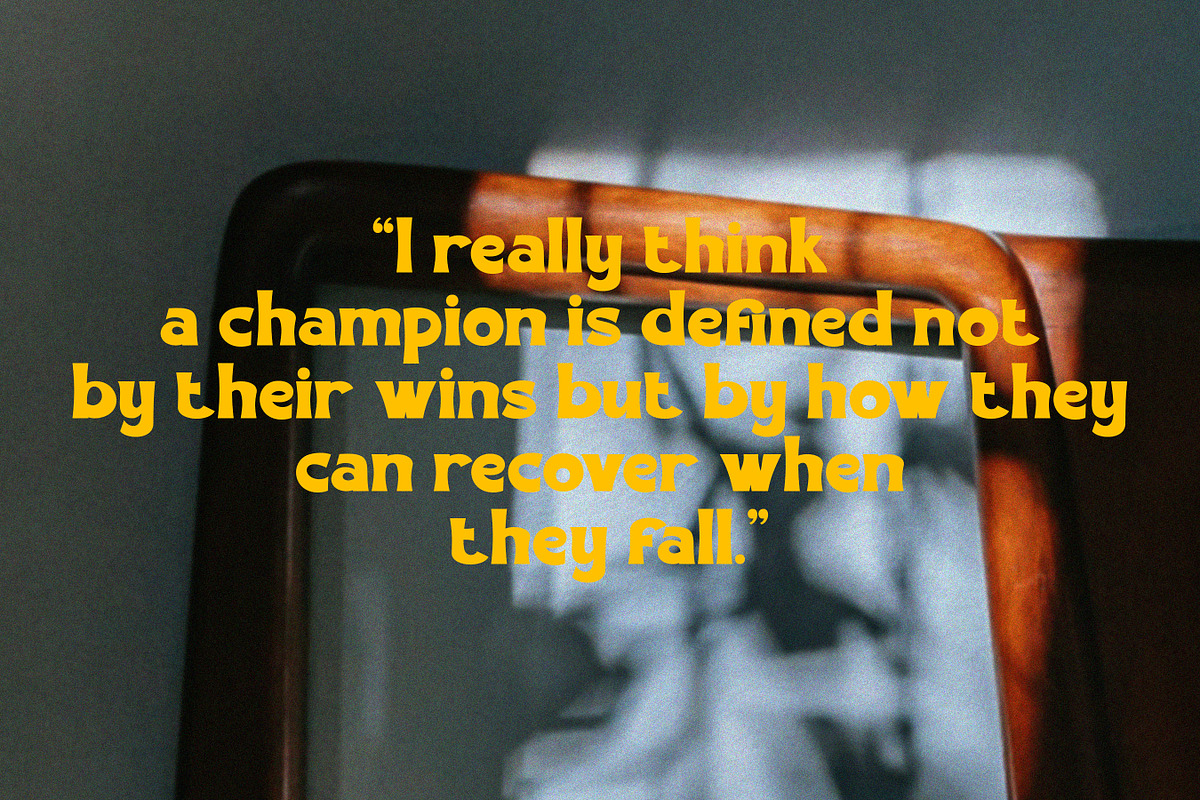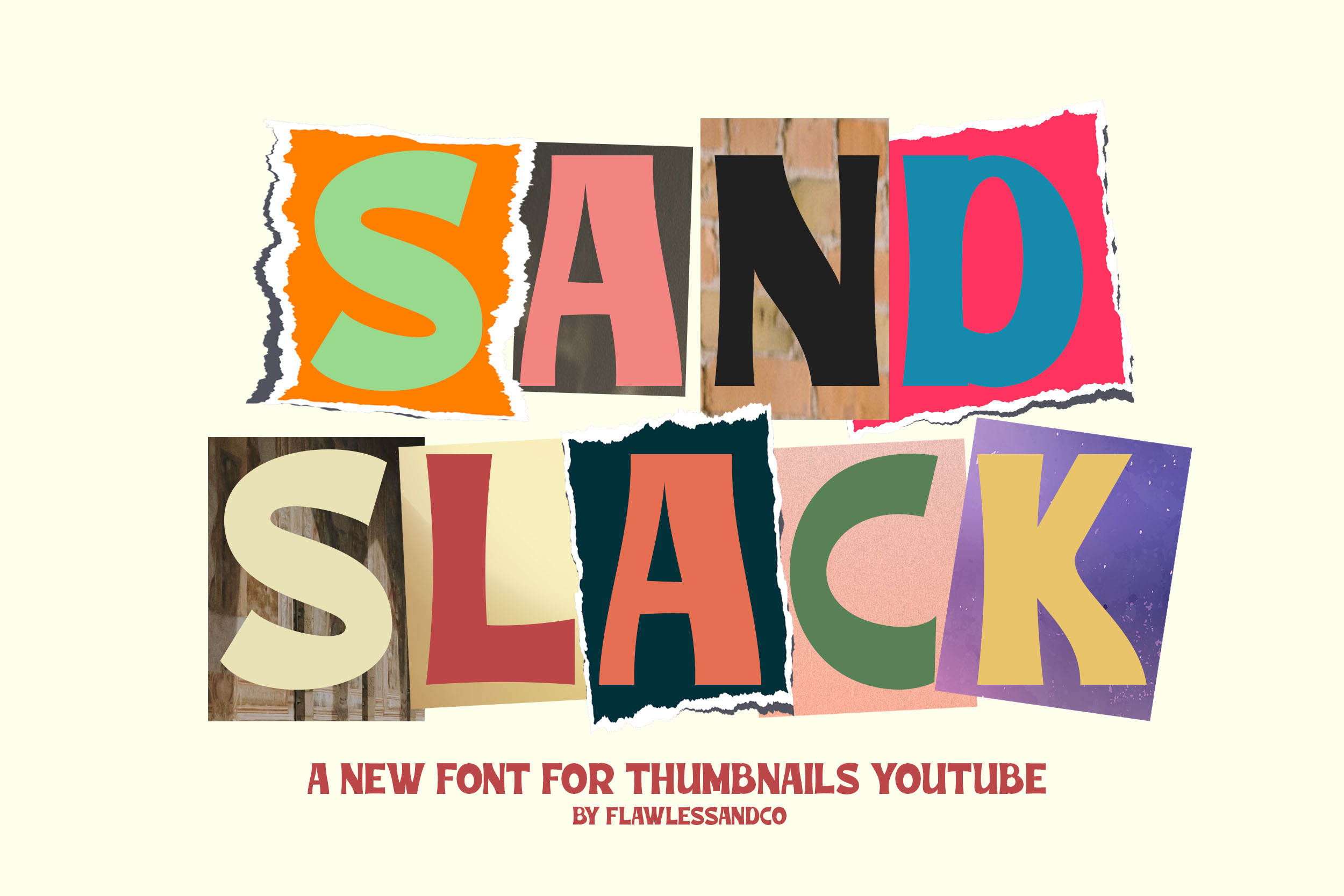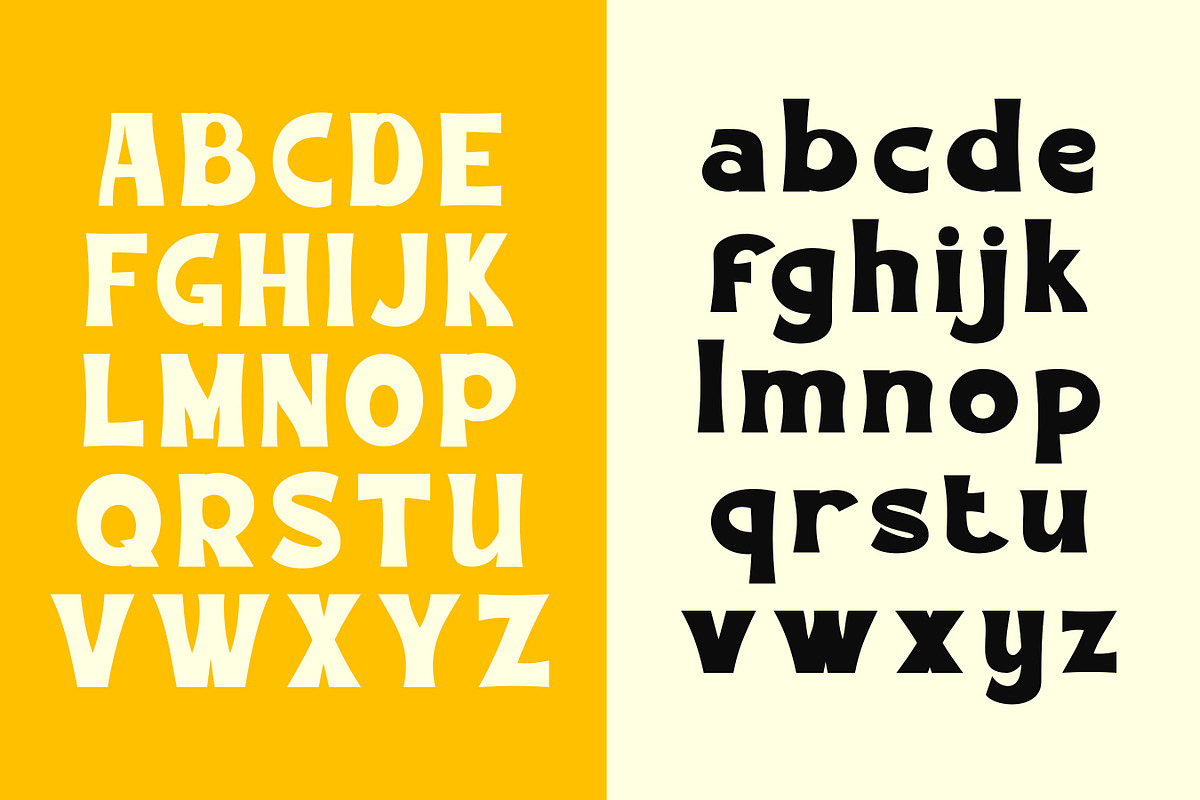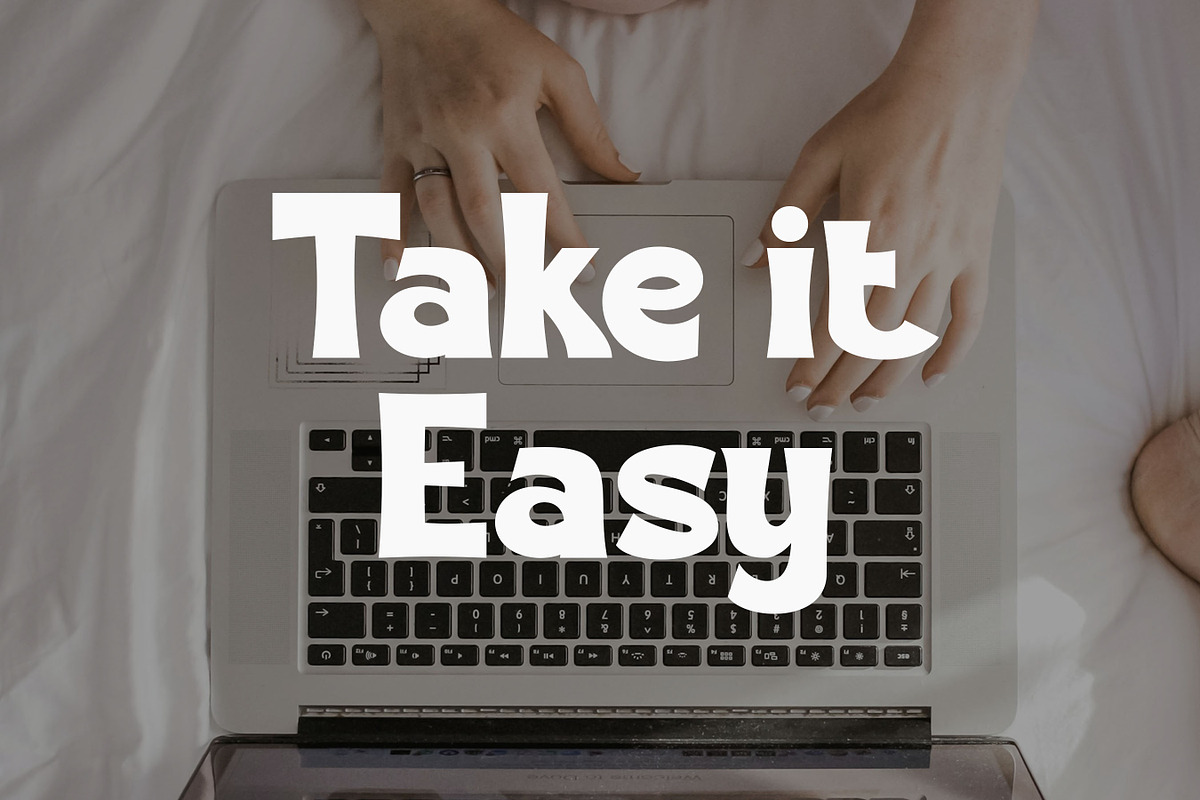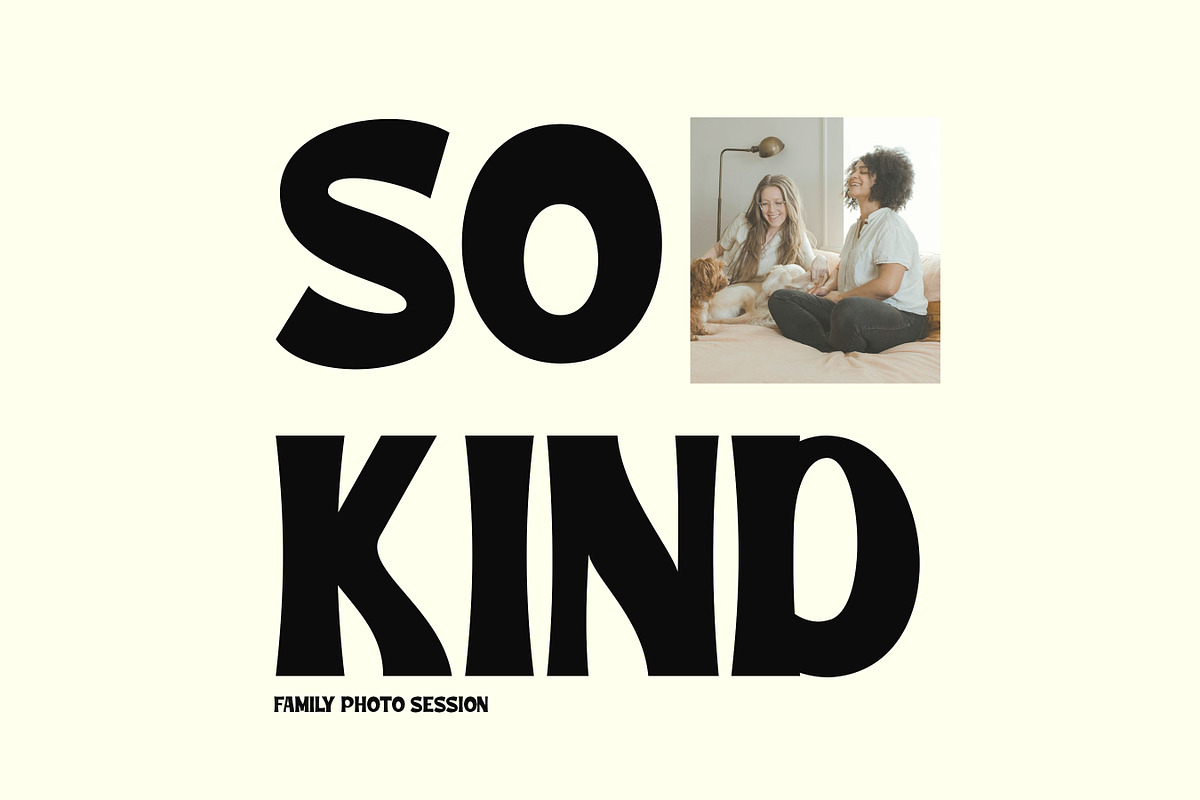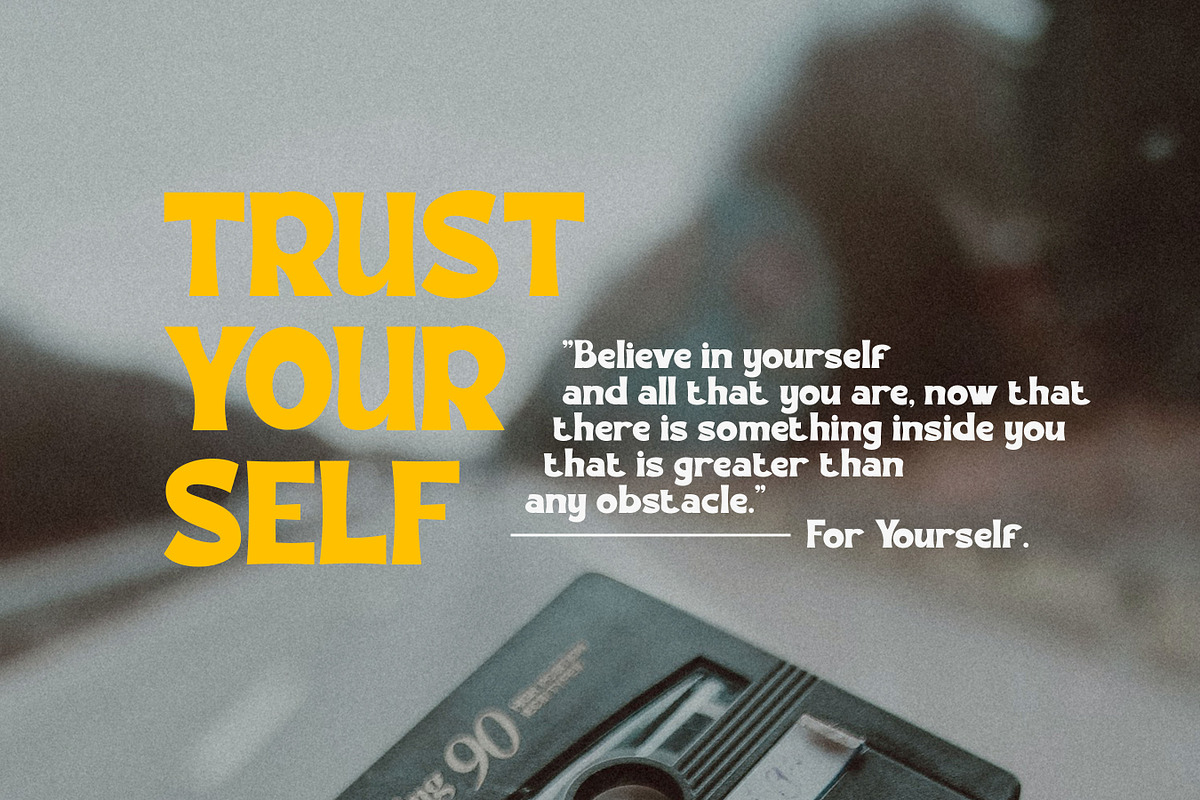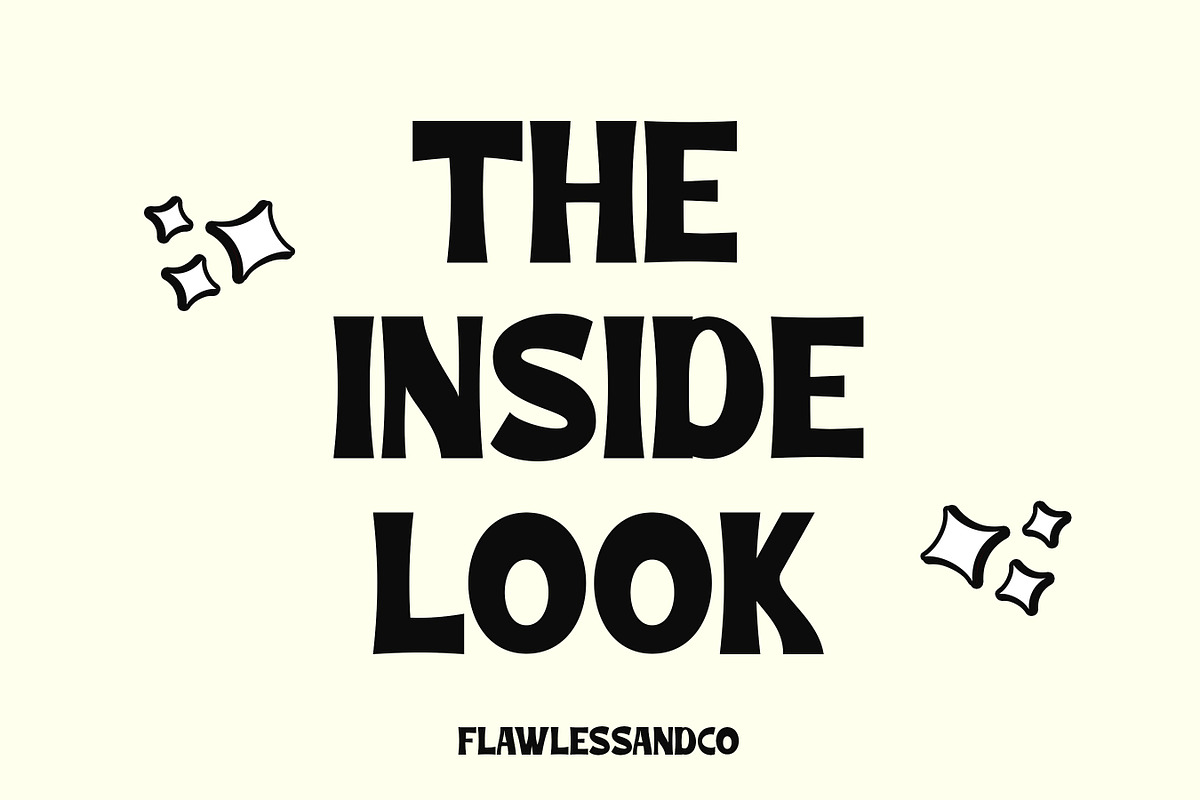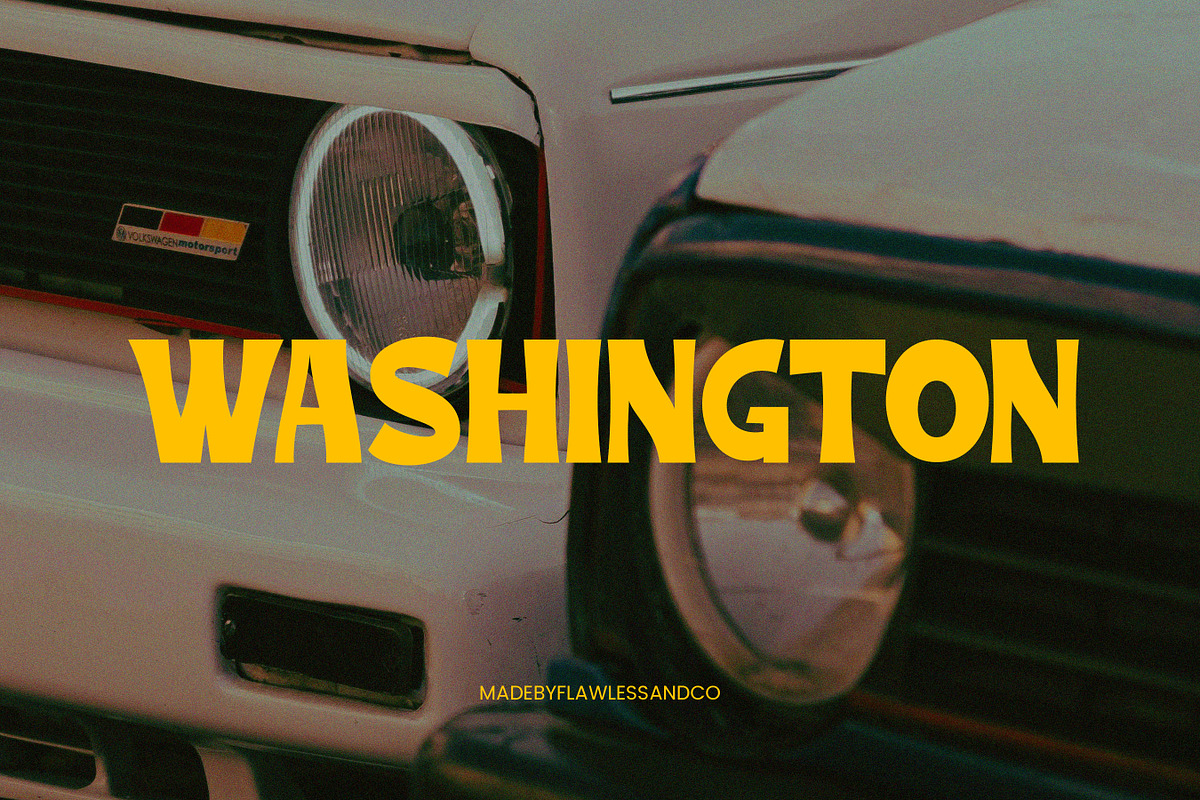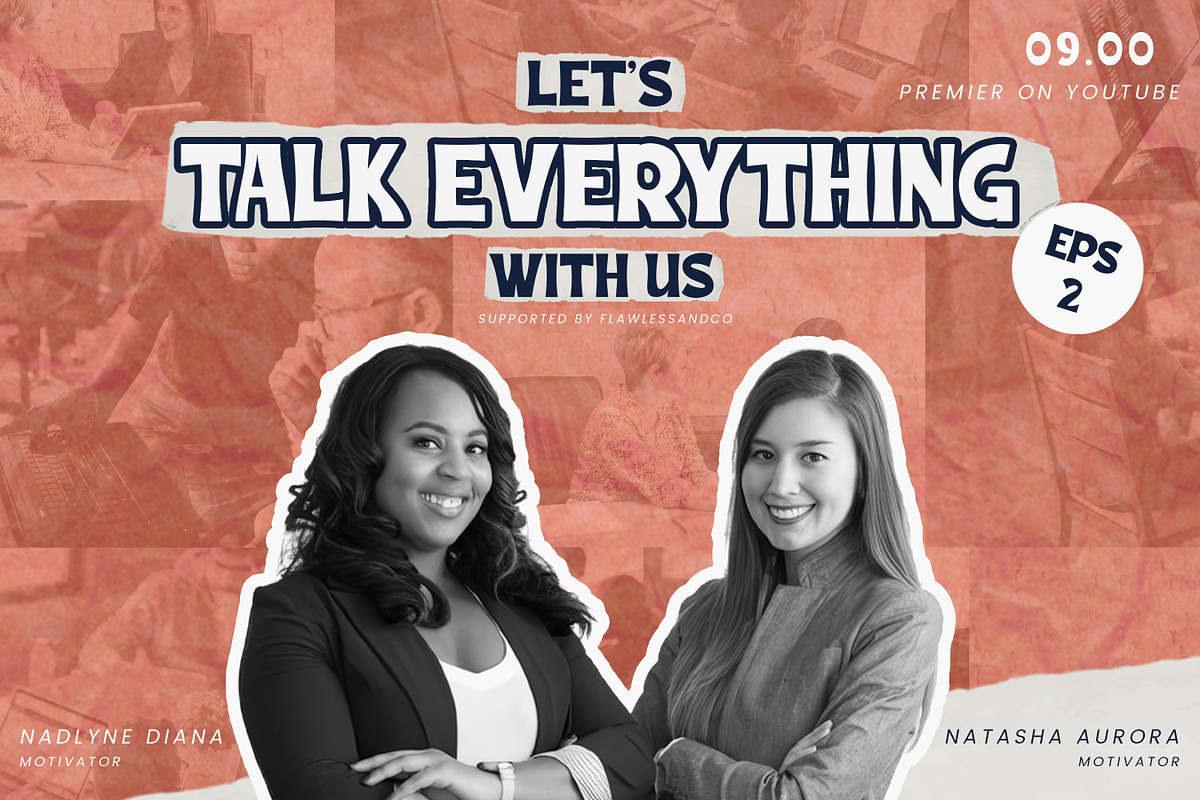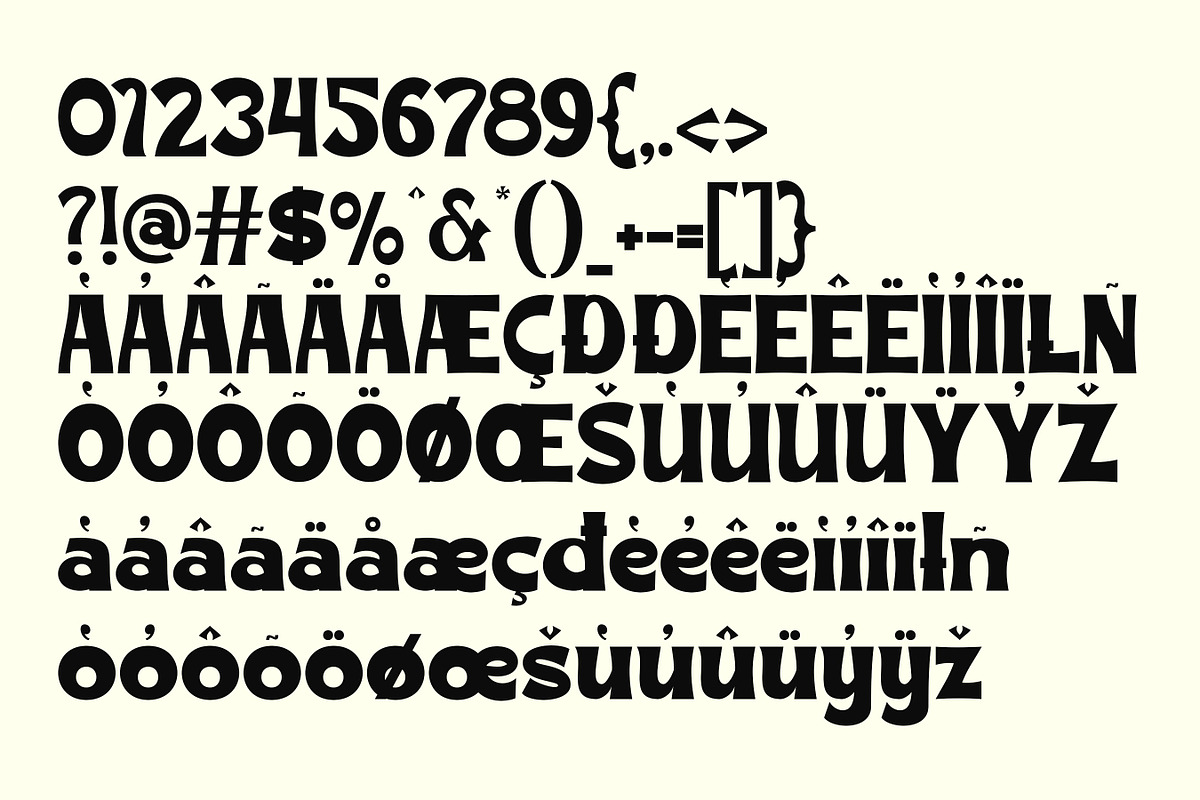
Sand Slack - Thumbnail Font
Introducing "Sand Slack" is a font for thumbnail projects. Elevate your thumbnails to the next level with "Sand Slack," a sleek and modern sans serif font tailored specifically for captivating visual content. With its clean lines and contemporary aesthetic, Sand Slack ensures that your thumbnails stand out in a crowded digital landscape, grabbing the attention of viewers at first glance. *on the cover preview is a result of the designer's creativity!